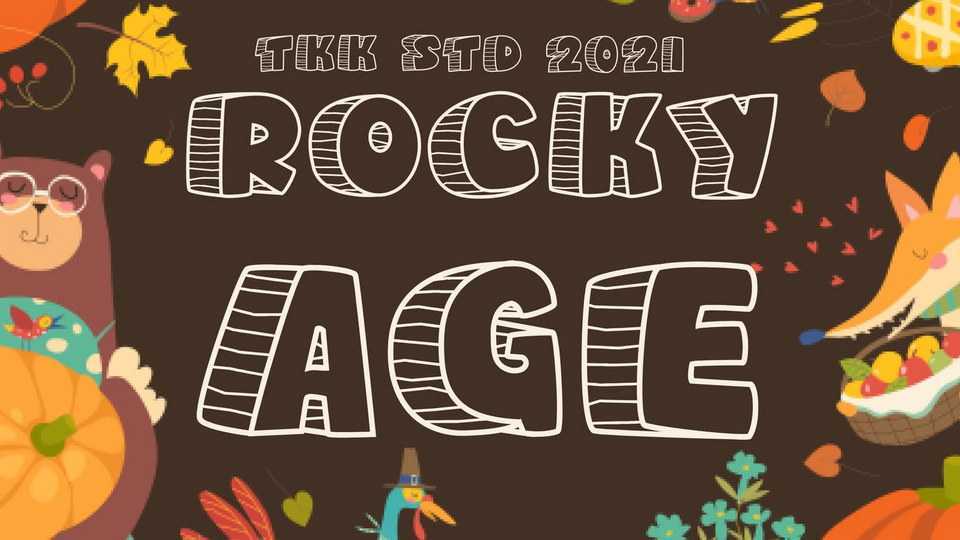
Download Rocky Age font, a fun kids typeface that brings a smile and joy, with a bit of a rocky feeling. The shape reminds us about the Jurassic era as well.